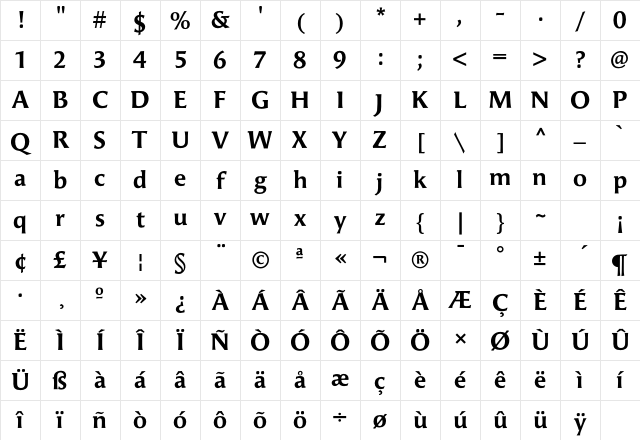
Angie Bold
Design Context for Angie
Angie is a composed and adaptable typeface that performs quietly and consistently across a wide range of design contexts. Its bold stroke weight gives it real presence on the page.